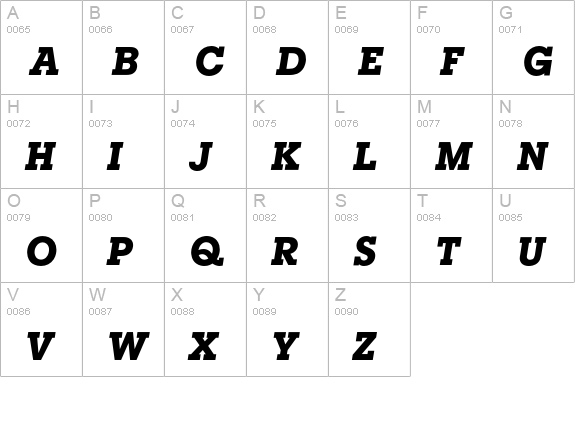
Lubalin Graph* Bold Oblique Font Details
Lubalin Graph* Bold Oblique is a strong, high-contrast, italic variant in the Lubalin typeface family \xE2\x80\x94 well suited to headlines, attention-grabbing titles, and strong calls-to-action.
Lubalin Graph Bold Oblique font is a striking and dynamic typeface that exudes a sense of modernity and sophistication. With its bold and slanted design, this font commands attention and adds a touch of elegance to any project. The unique letterforms and subtle curves create a strong visual impact, making it perfect for headlines, logos, and branding materials. What sets Lubalin Graph Bold Oblique font apart is its versatility and ability to convey a sense of strength and style. Whether you're designing a poster, magazine layout, or website, this font will elevate your design and make a lasting impression on your audience. The best part? Lubalin Graph Bold Oblique font is available for free download at FontsMarket.com. So go ahead and add this stunning typeface to your collection today and take your design projects to the next level.